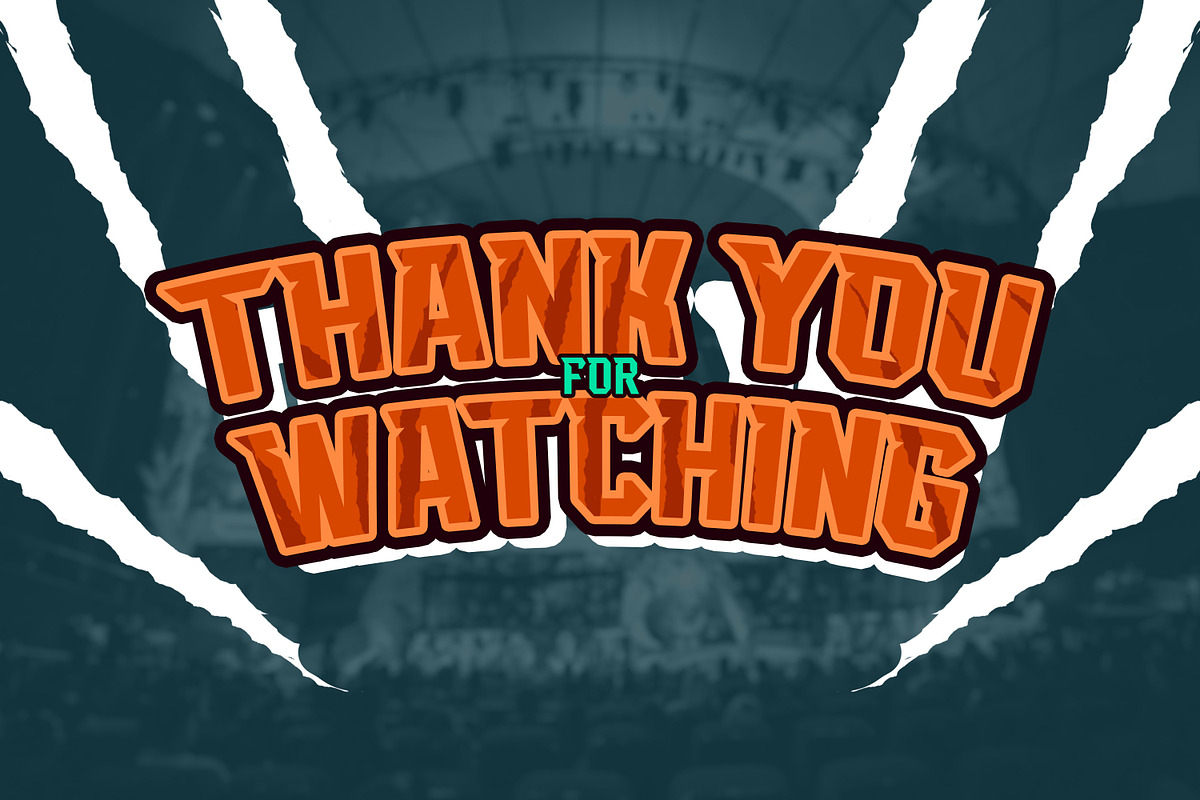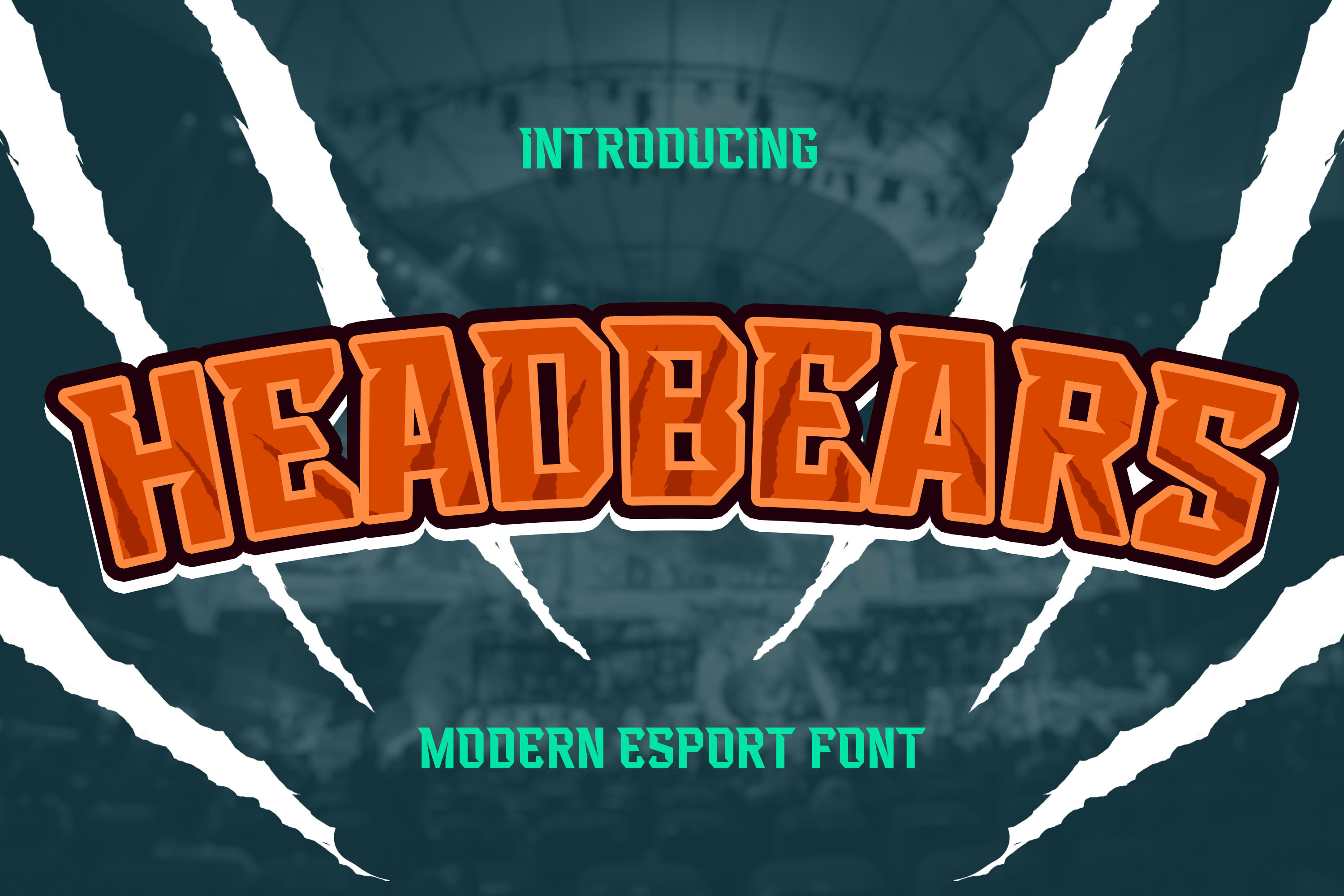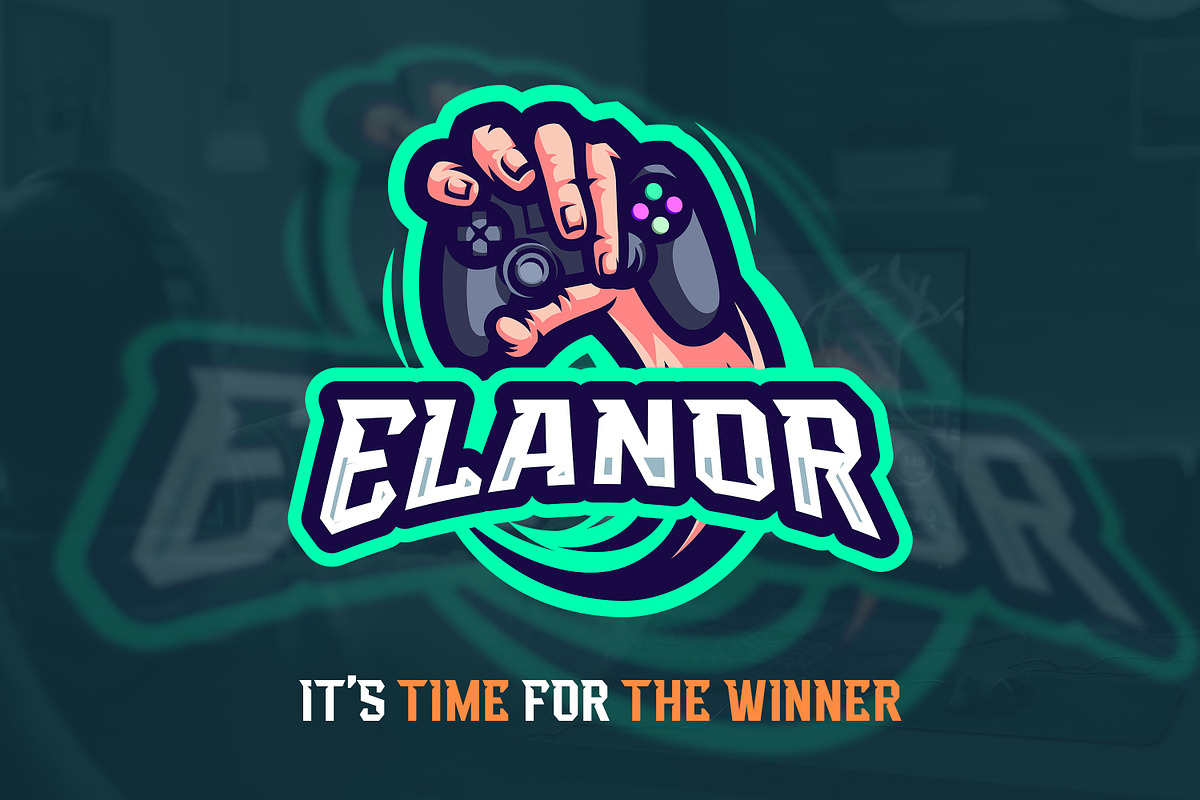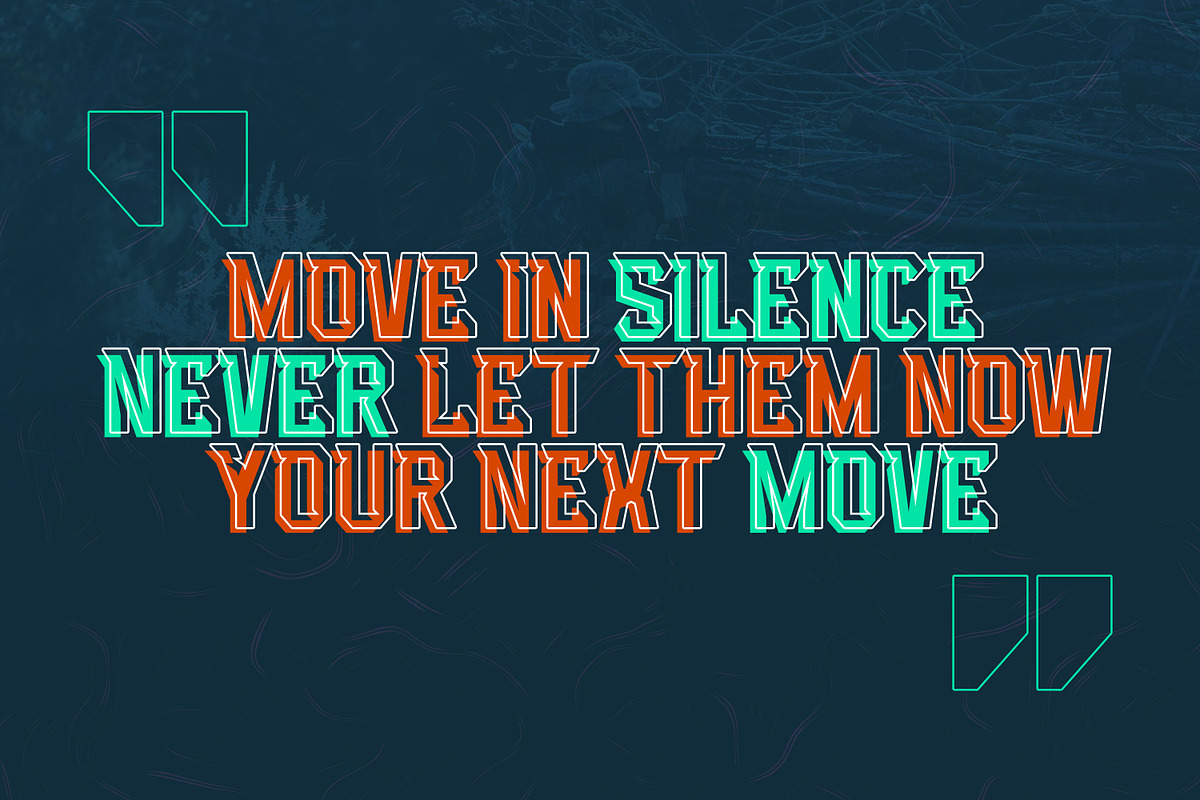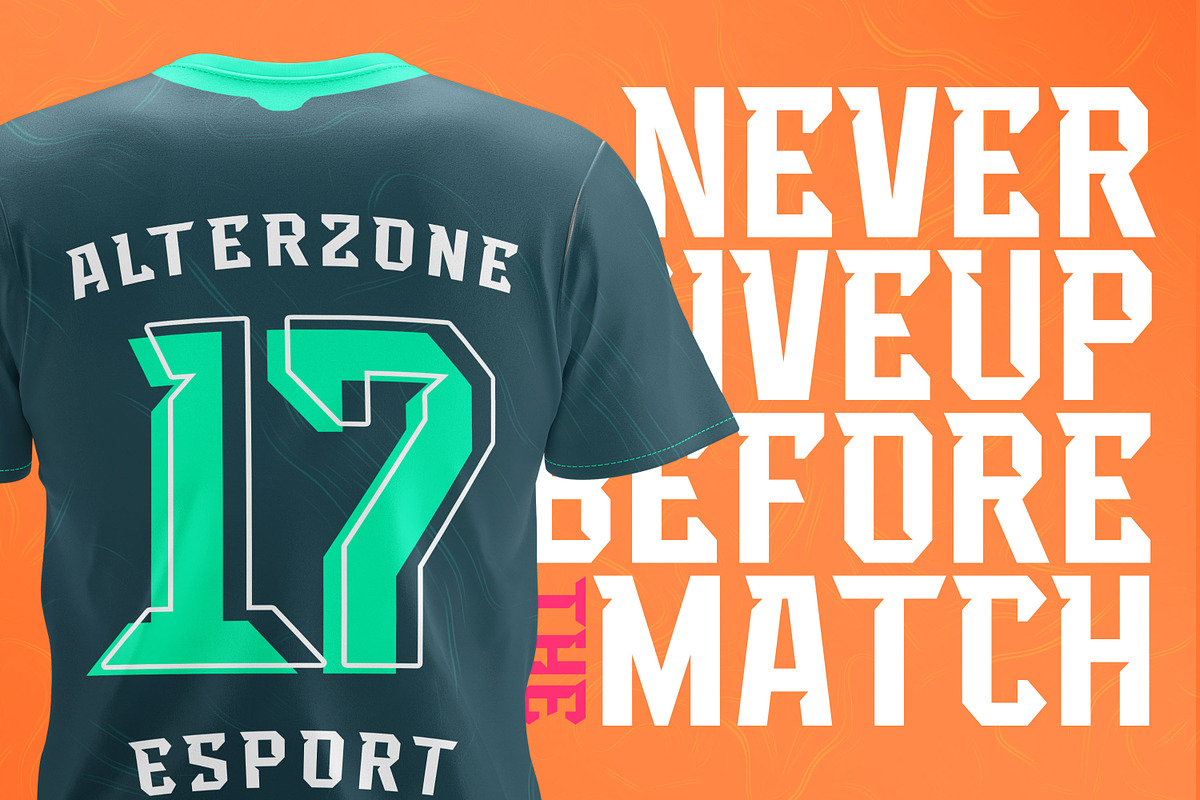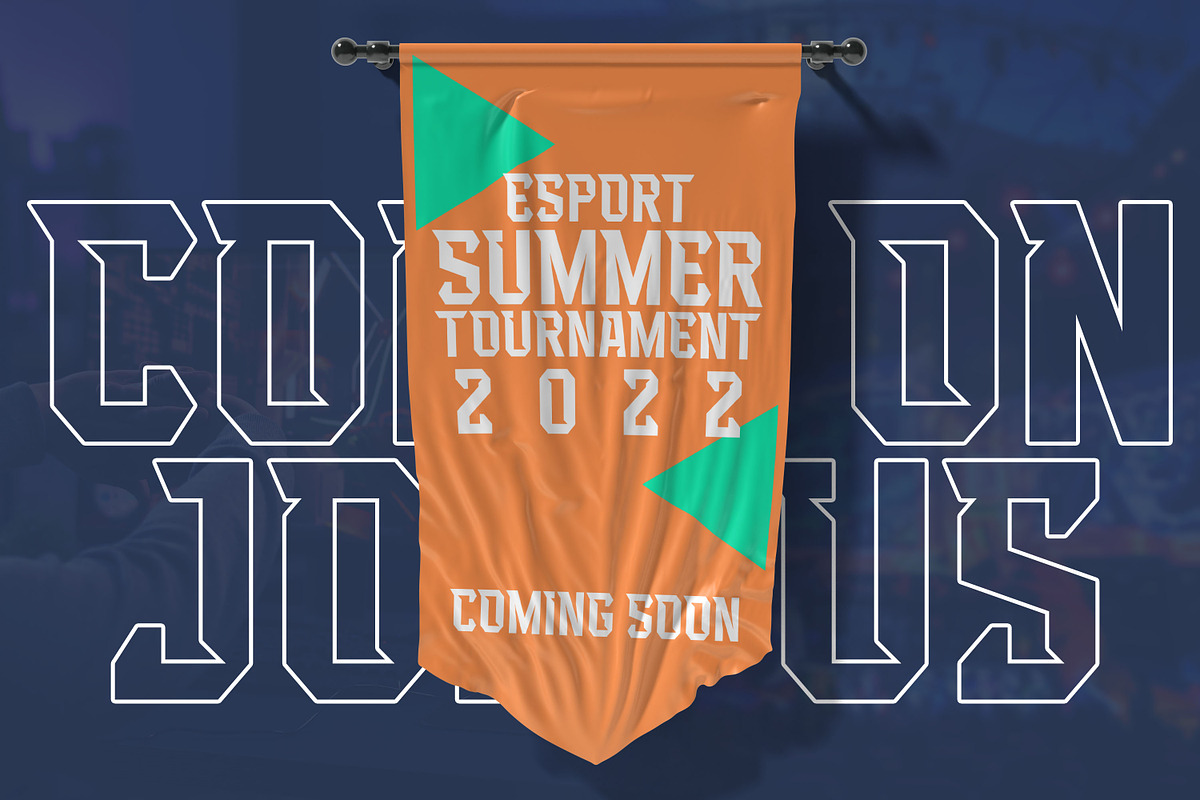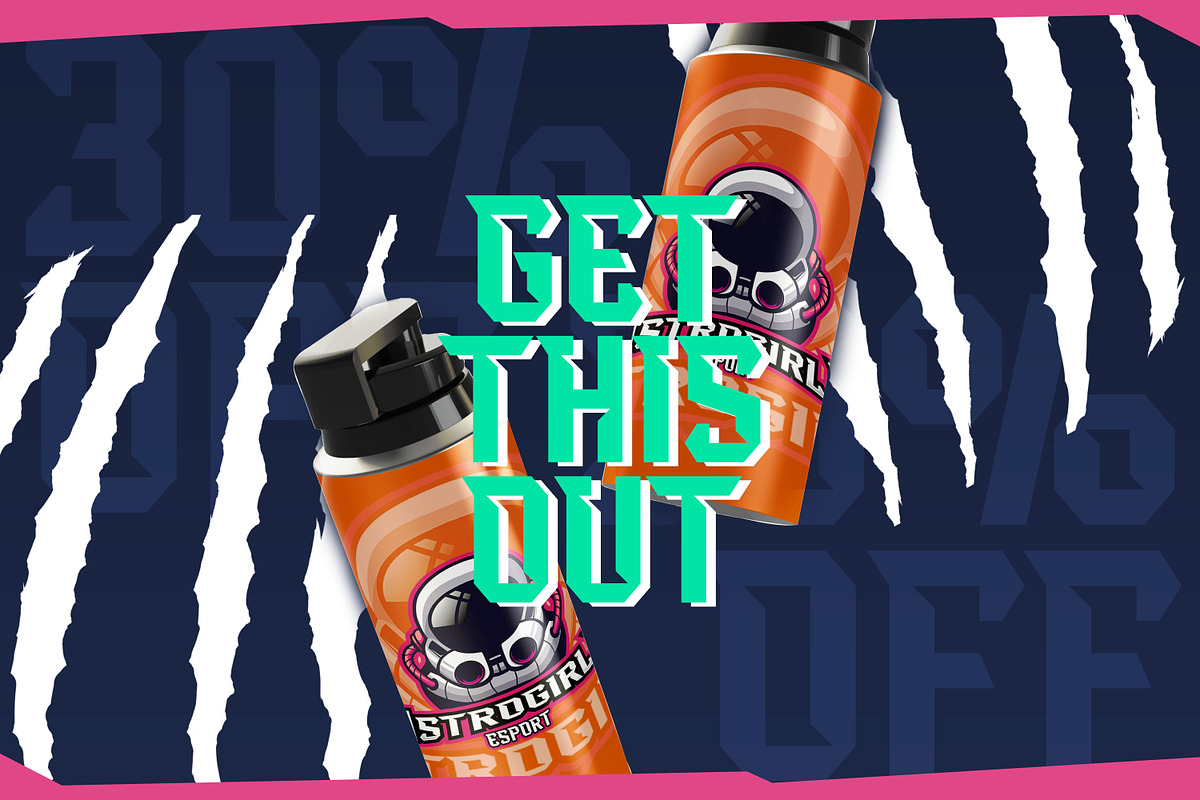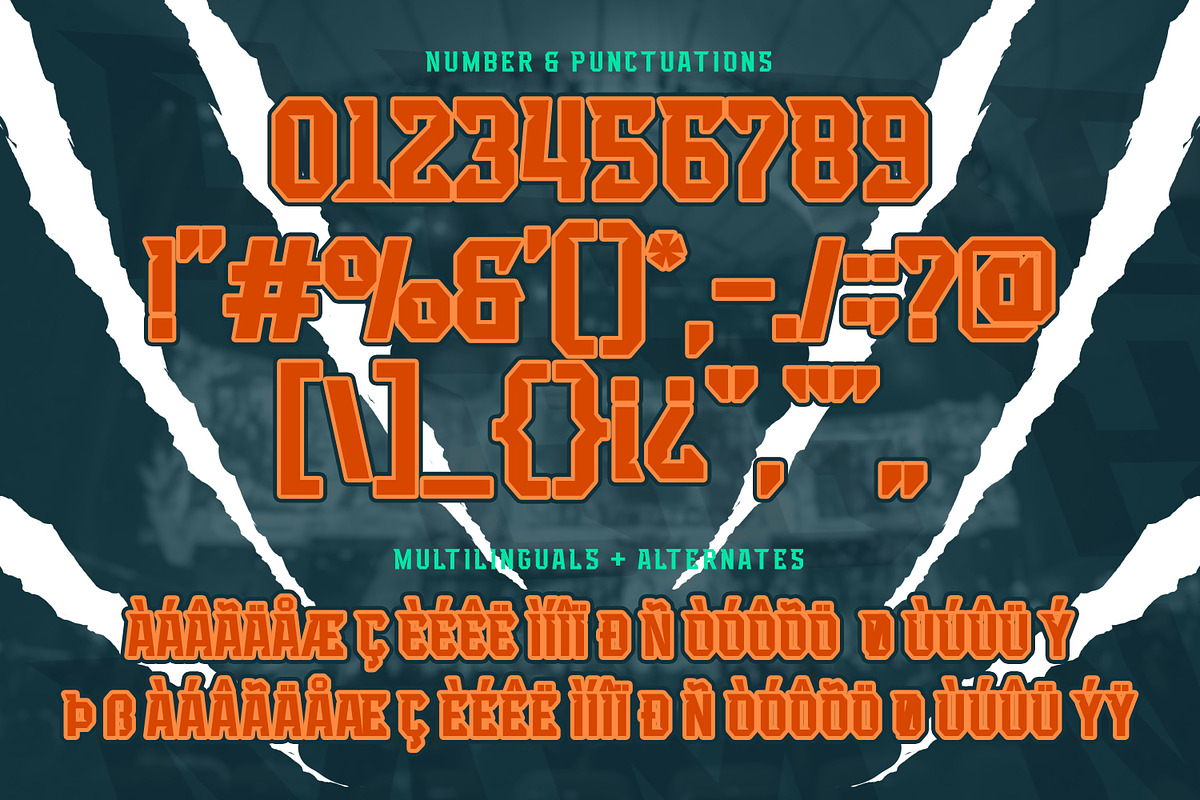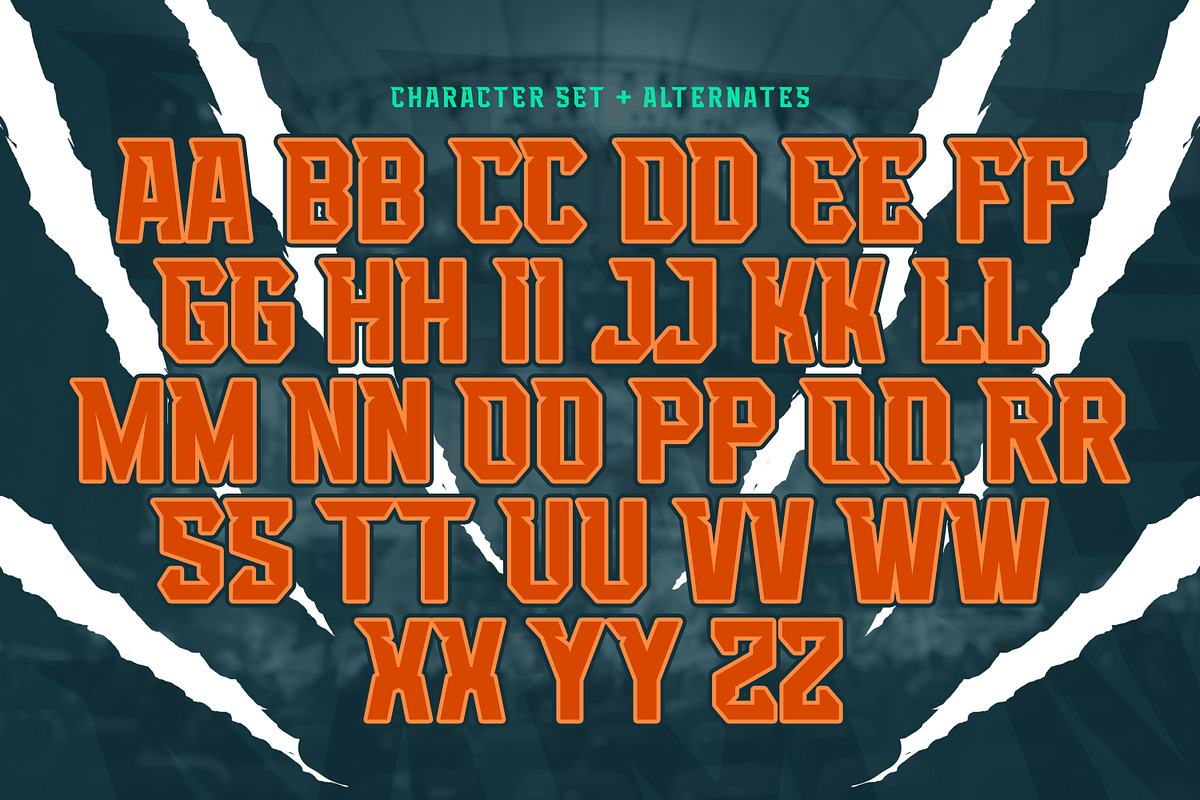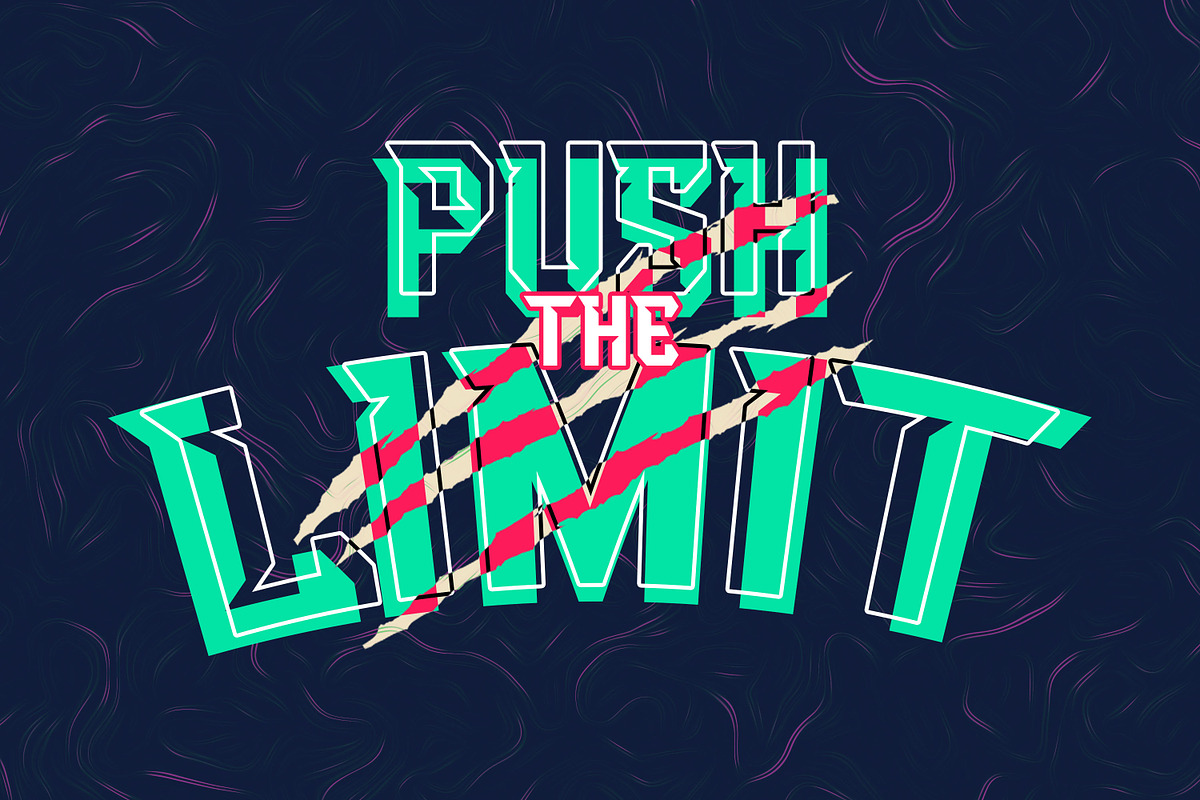
Headbears - Modern Esport Font
Hello Everyone, introduce our new product Headbears - Sport Display, inspired by the title of the sports poster and We make it very energetically. Headbears font with strong and challenging nuances. very suitable for the title, typography, Poster, magazines, brochures, packaging,Websites and much more for your design needs, making your designs more modern and professional